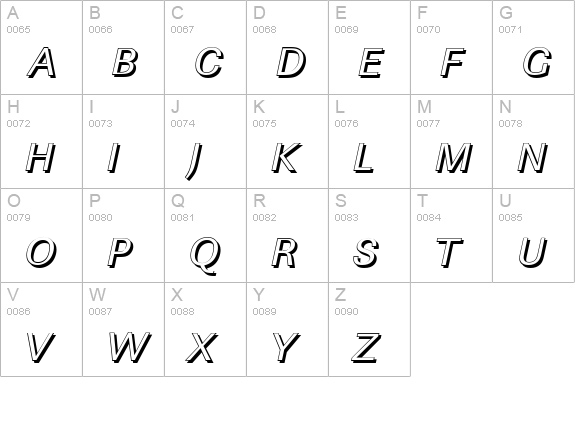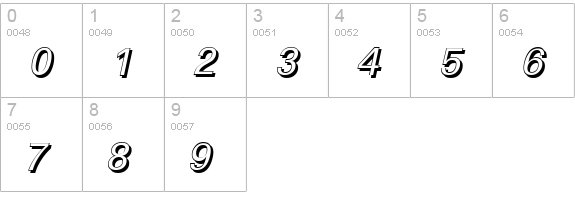
LinearSh-Italic is a distinctive, italic variant in the LinearSh typeface family \xE2\x80\x94 well suited to design and typography projects.
LinearSh-Italic is a sleek and modern font that exudes sophistication and style. Its italicized design adds a touch of elegance to any project, making it perfect for branding, logos, and editorial design. The clean lines and sharp angles of LinearSh-Italic create a sense of precision and professionalism, making it ideal for conveying a sense of sophistication and refinement. Best of all, LinearSh-Italic is available for free download at FontsMarket.com. This means you can easily access this stunning font and incorporate it into your designs without any cost. Whether you're working on a personal project or a professional assignment, LinearSh-Italic is a versatile and eye-catching font that will elevate your work to the next level. Download LinearSh-Italic today and add a touch of elegance to your designs.